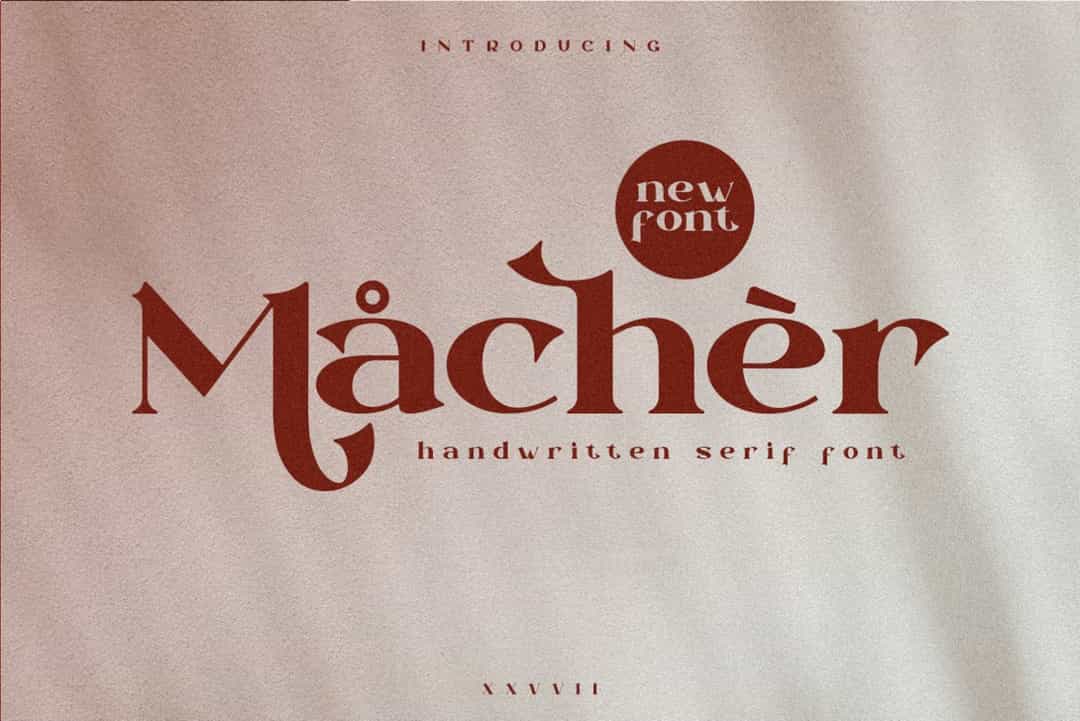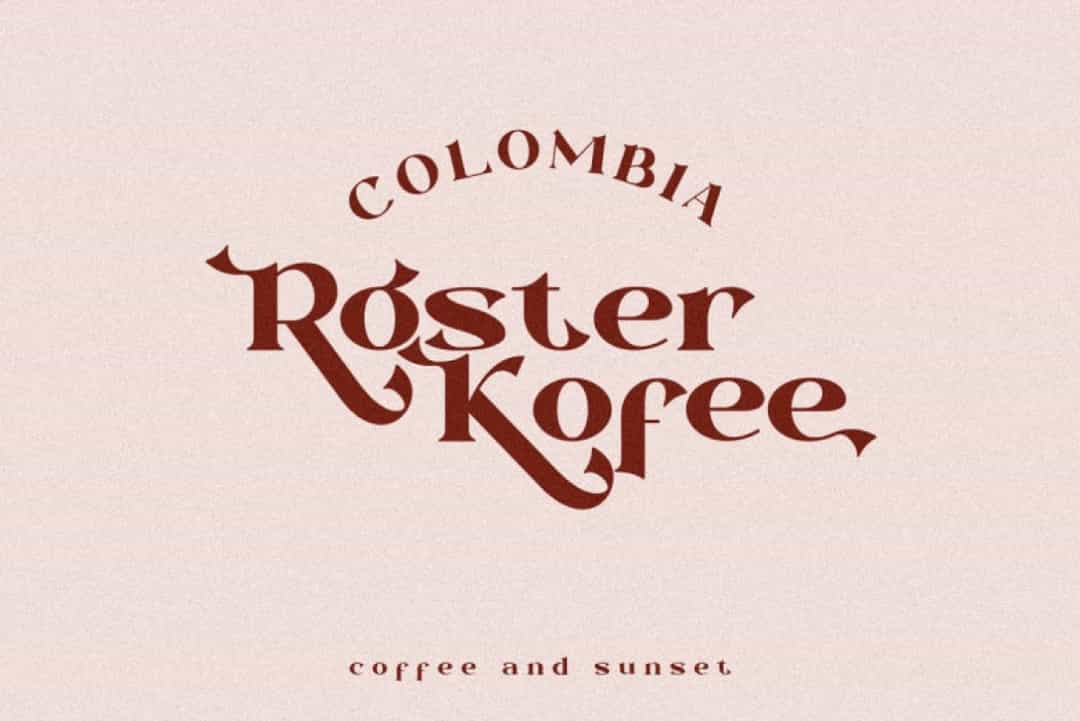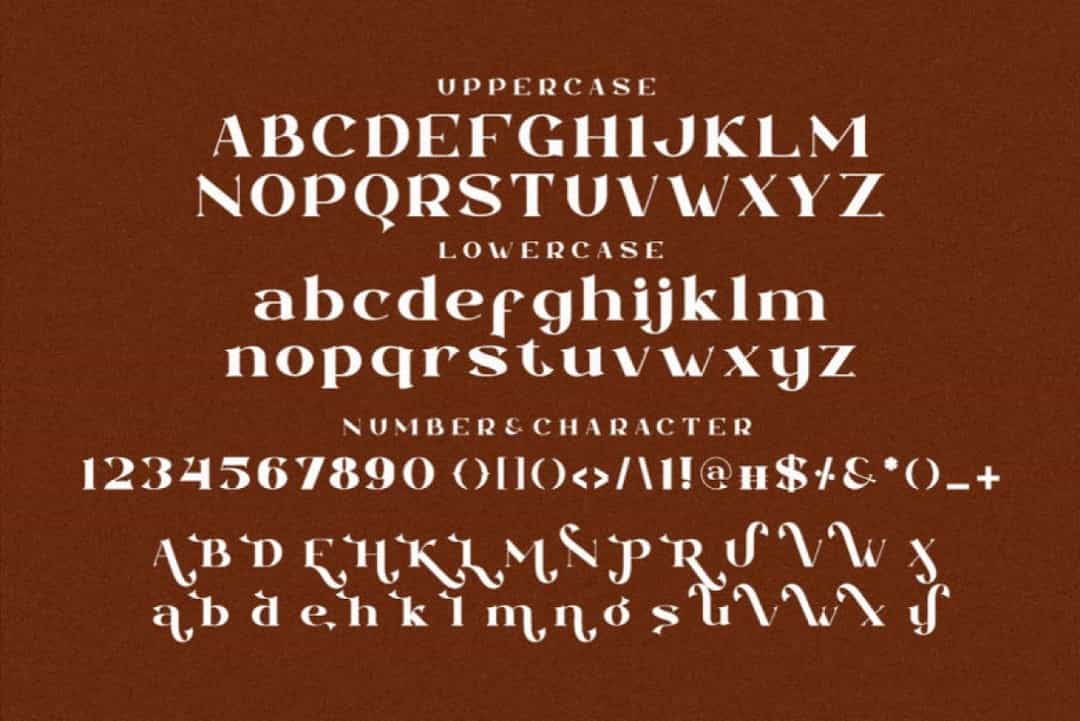
Discover Macher Font, part of the Serif collection—a versatile and unique font perfect for adding a personal touch to your projects. Download it for free and enjoy crafting designs with style, from invitations to social media posts. This font is available exclusively for personal use, giving you the freedom to create without limits. Unlock your creativity with Macher Font today!
Macher is an authentic and bold serif font designed by Michael Macher himself. Perfect for use in logo design, T-shirt printing and Esports applications – Macher is PUA encoded allowing easy access to its characters and even swashes!